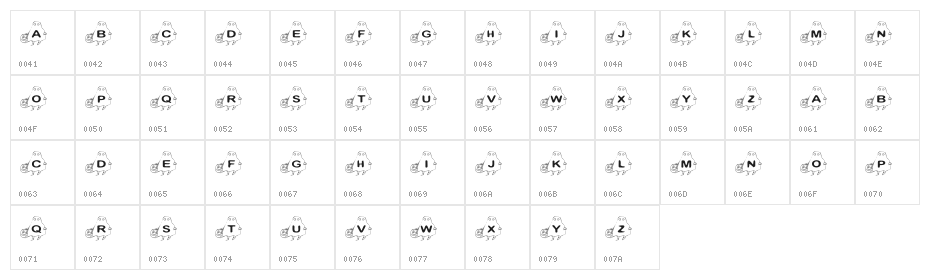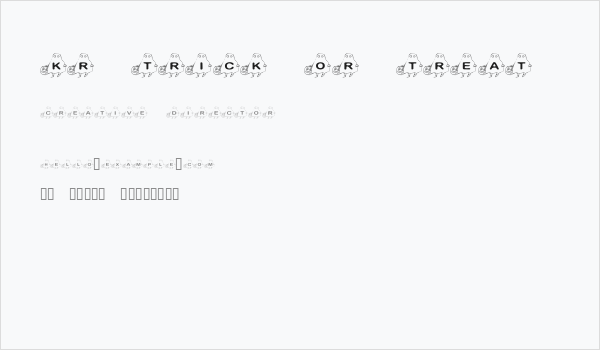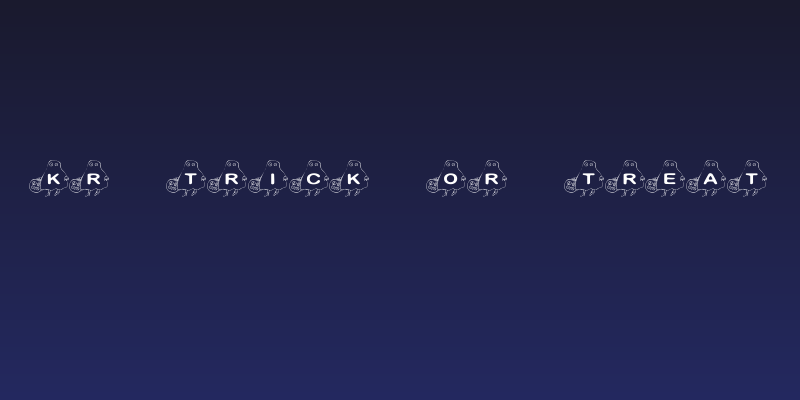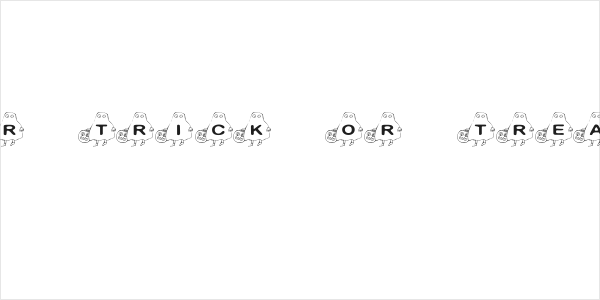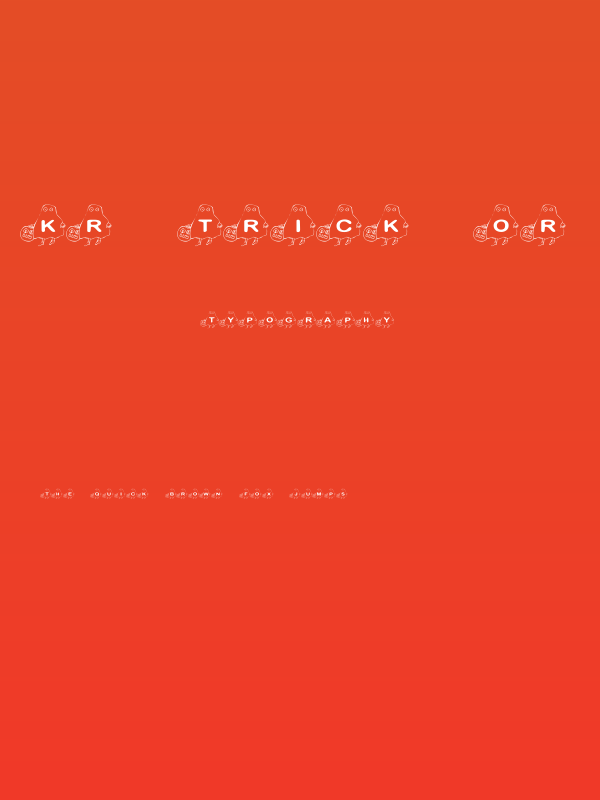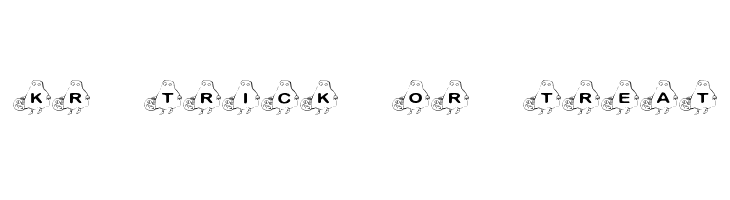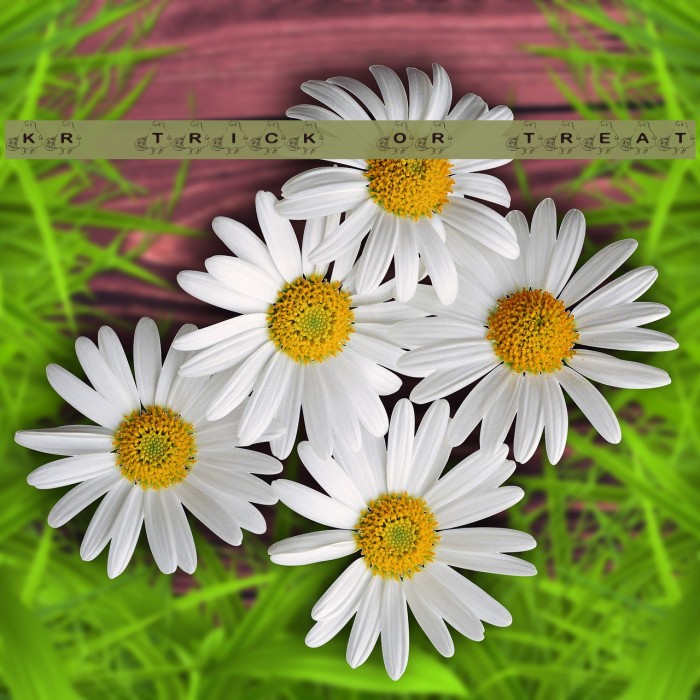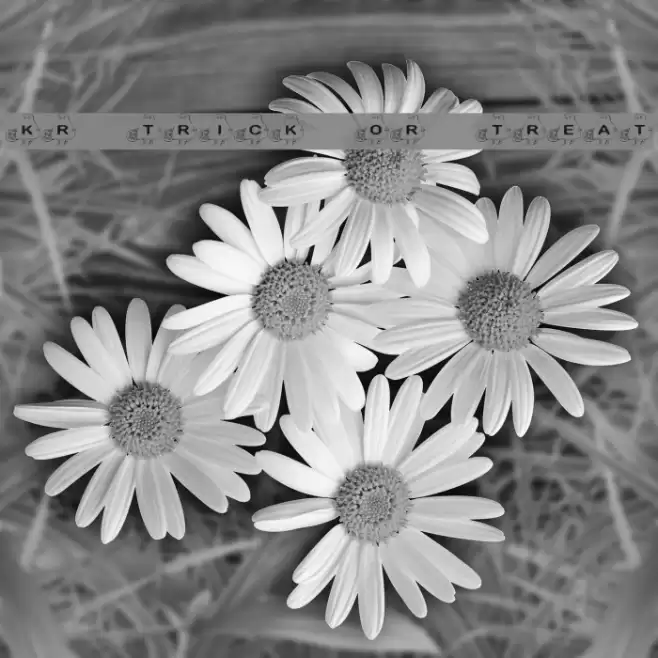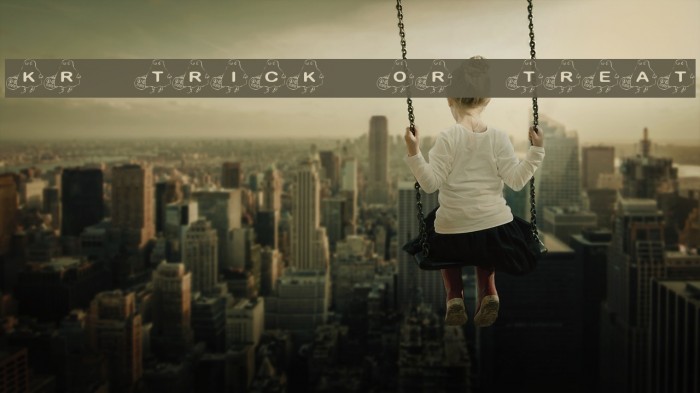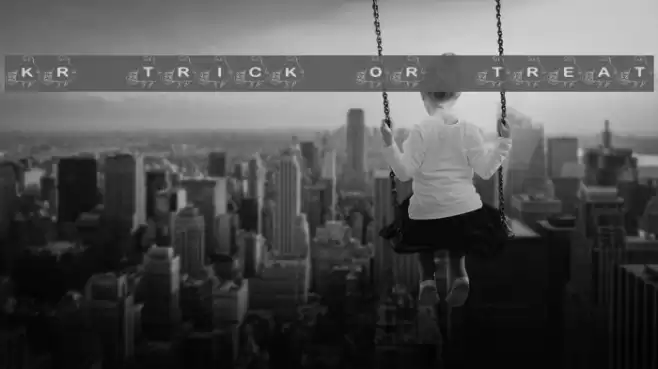
KR Trick Or Treat Font
KR Trick Or Treat Description
This playful and whimsical font features each character enclosed within a cartoonish ghost-like figure, adding a fun and festive touch. The uppercase letters are bold and clear, making them easily readable despite the decorative elements. The font lacks lowercase letters and numbers, focusing instead on a unique presentation with the ghost motif. The special characters are represented by rectangular blocks, maintaining the theme. This font is ideal for Halloween-themed projects or any design requiring a lighthearted and spooky aesthetic.
| Proposed Projects | Ideal for Halloween invitations, party decorations, themed posters, and children's event flyers. |